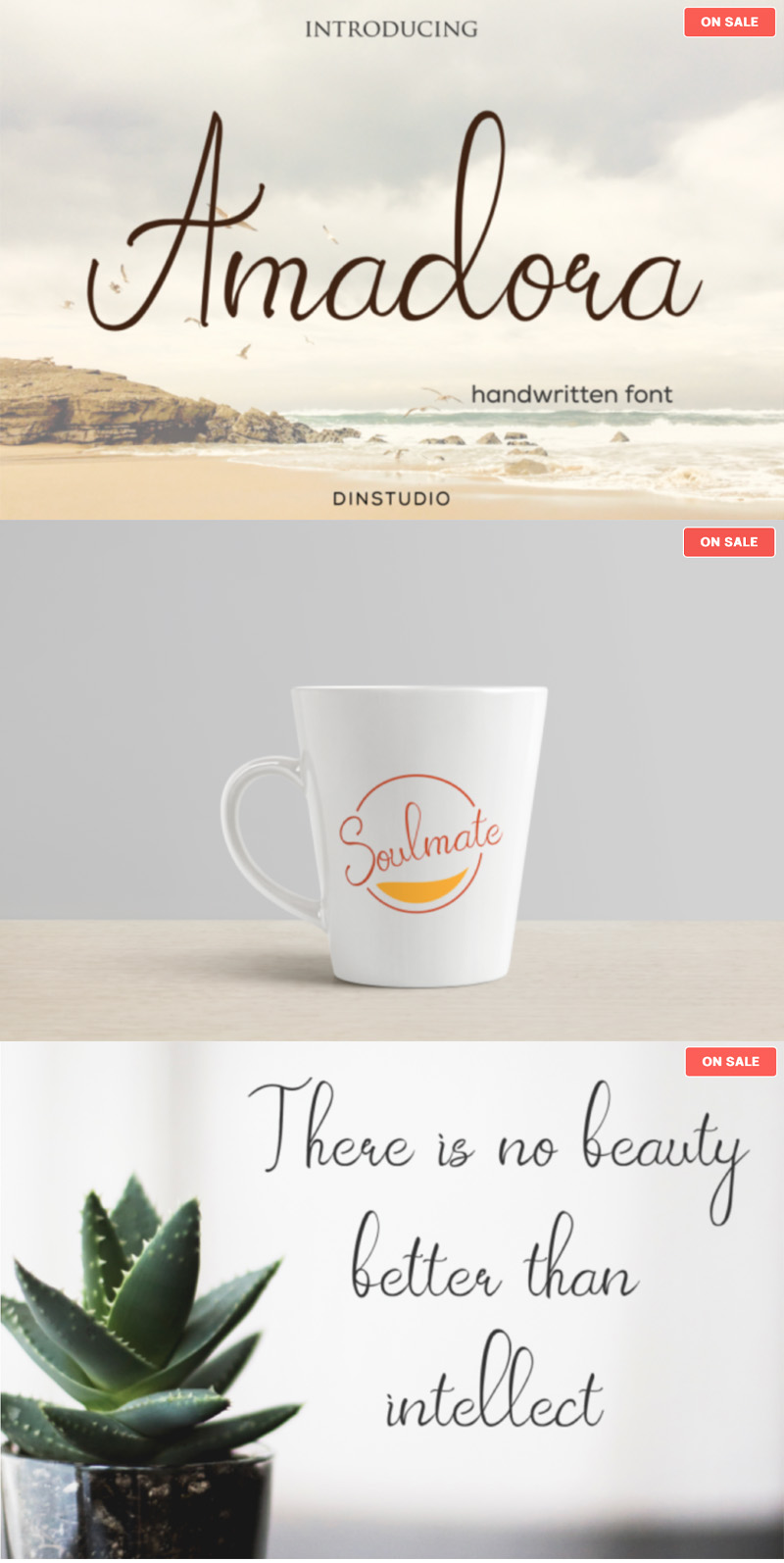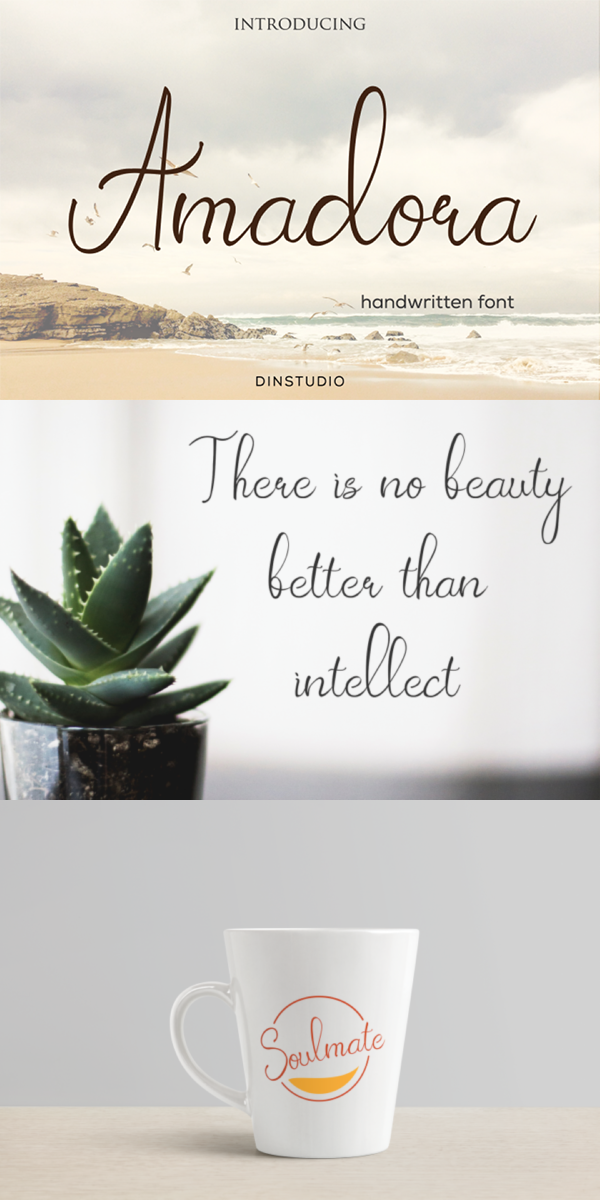
Amadora Font
About Amadora
Amadora Font a fun and chic font which is perfect for your fun and casual project. Made for any professional project branding, such as, signature logos, watermark, wedding invitation, branding, promotion, product packaging, and more. Every letter has a unique and beautiful touch. This font’s made from our talented with love and unique.
- Italic Version
- Uppercase and Lowercase Letters
- Punctuation
- Numerals
- Many swashes and ligatures